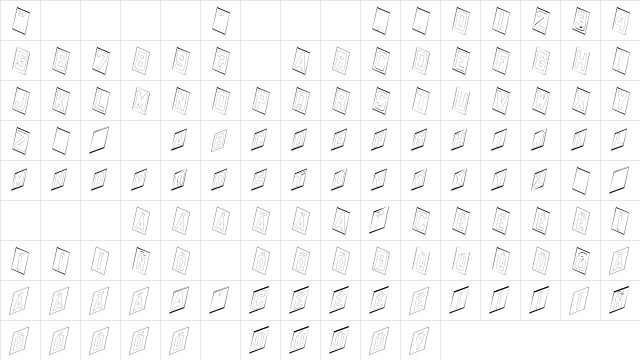
PlacecardOutline Italic
Design Context for PlacecardOutline Typeface
PlacecardOutline is built around its visual character rather than neutral utility — its distinctive forms are designed to make an impression at display sizes. The slanted form adds forward momentum and visual energy.
Font Pairing: Pair with a clean neutral sans-serif for body copy to let PlacecardOutline's character lead without overwhelming the composition.
Pro Tip: Treat PlacecardOutline as the centrepiece of your typographic hierarchy. One strong heading set in a decorative face can carry an entire layout.